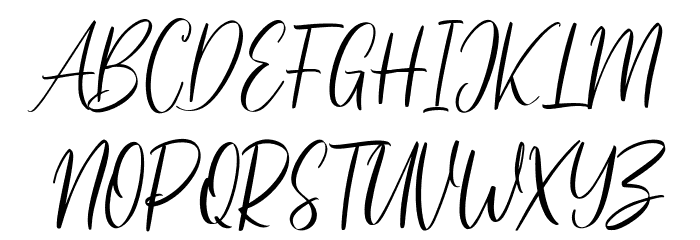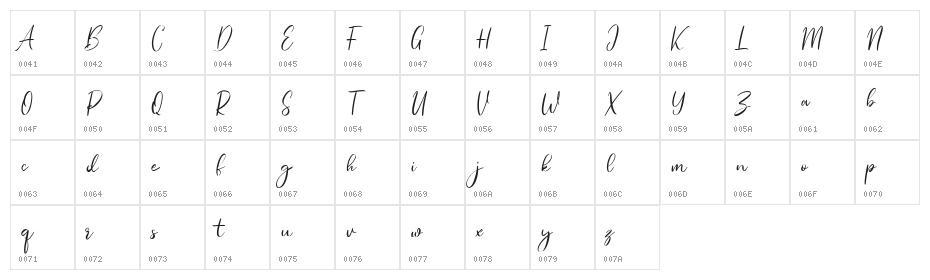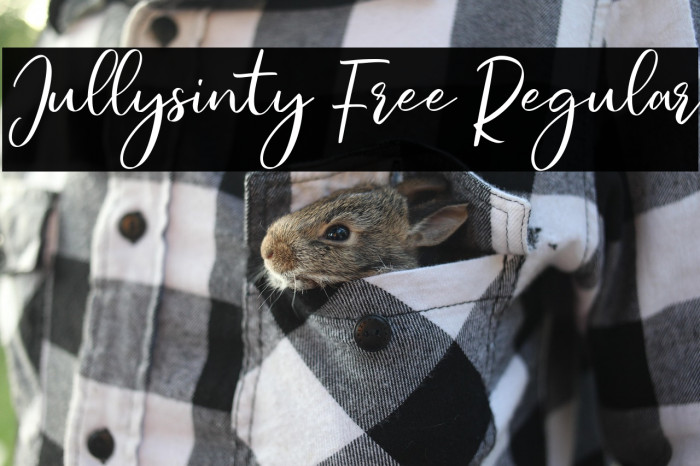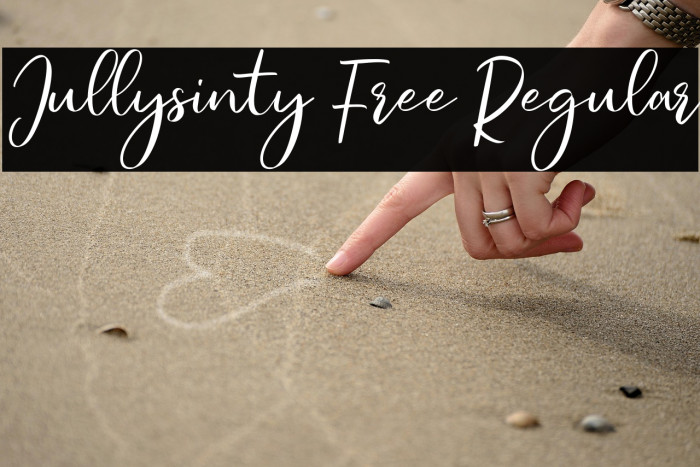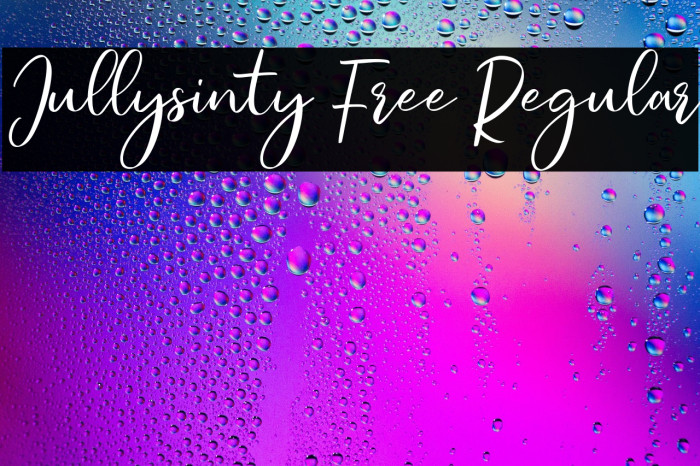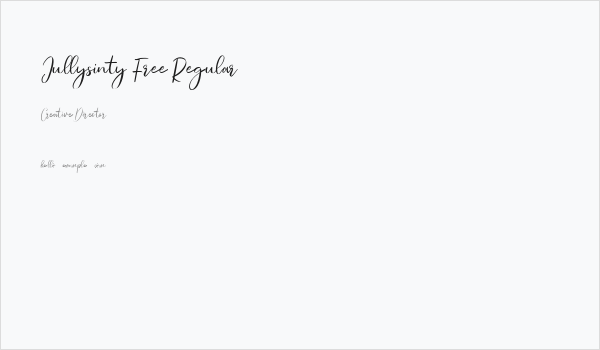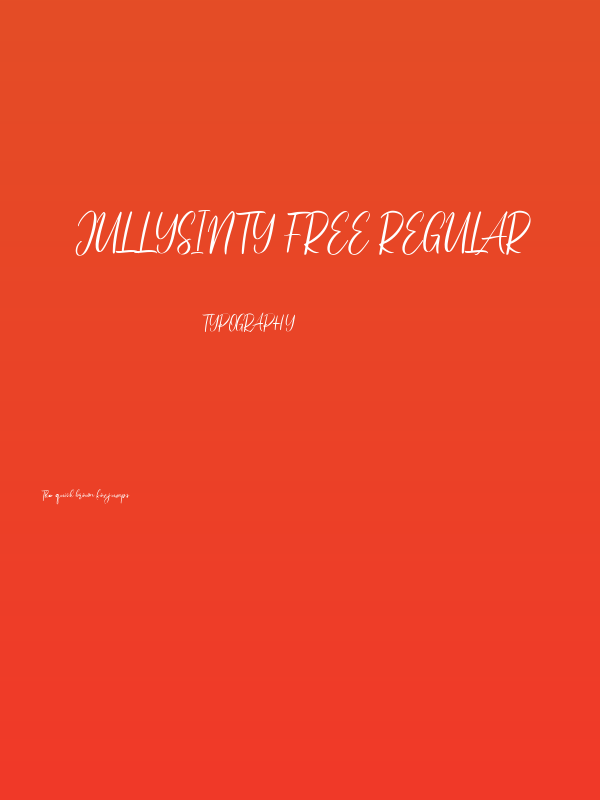
Jullysinty Free Regular Font
Jullysinty Free Regular Description
A flowing, handwritten script font with elegant, elongated letterforms and smooth, connected strokes. The characters have a natural, casual feel with varying baseline heights and a slight slant, giving it a personal and artistic touch.
| Overall Style | Decorative, Handwritten, Elegant |
| Use Case | Logos, Invitations, Headlines, Decorative text |
| Proposed Projects | Wedding invitations, greeting cards, branding, social media graphics, personal signatures. |